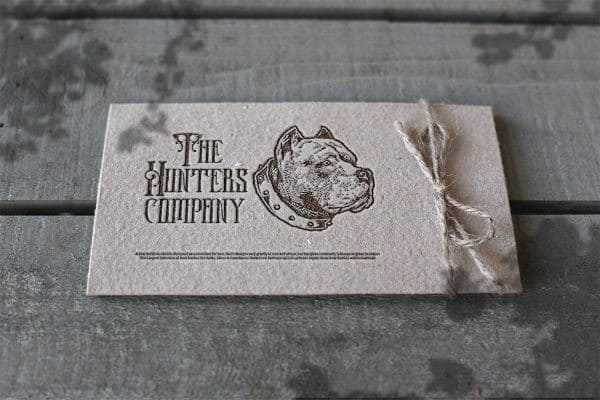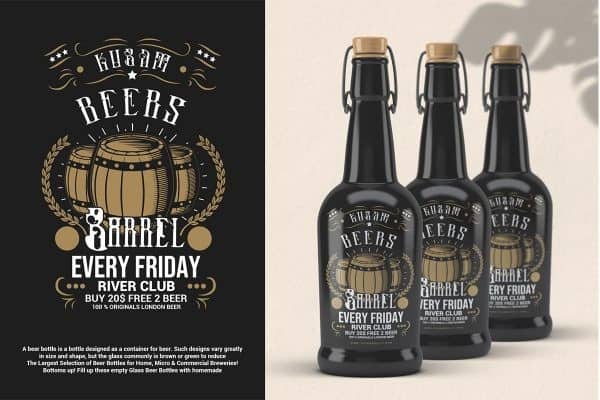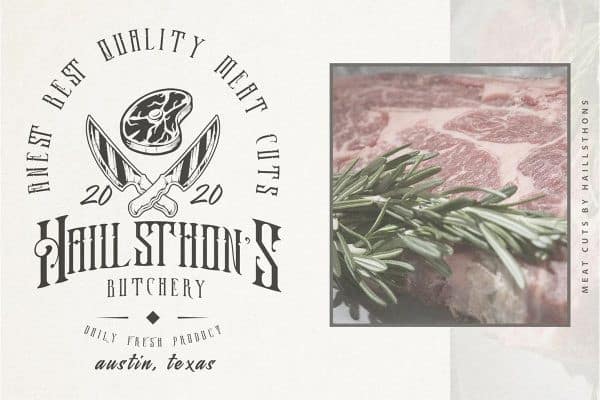
Mr.Venus & Mrs.Mars Blackletter Font
Introducing, Mr.Venus & Mrs.Mars Blackletter Font an incredibly Unique and Interesting Display Font. Made from font designer named Display Studio. It is perfect for vintage logo design, headlines or packaging design. The product also includes a set of decorative ornaments. This combination allows you to easily build beautiful vintage designs in a short time.